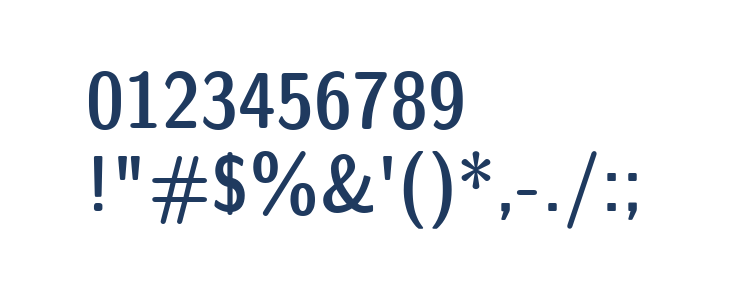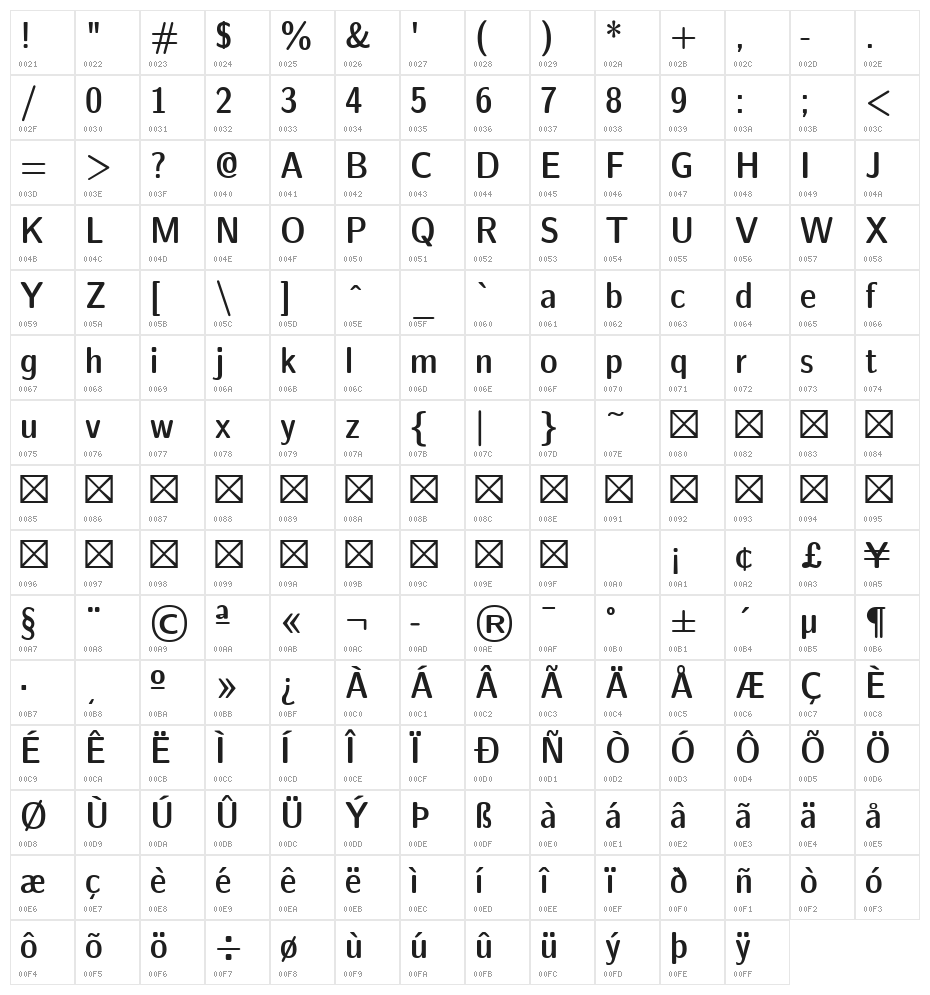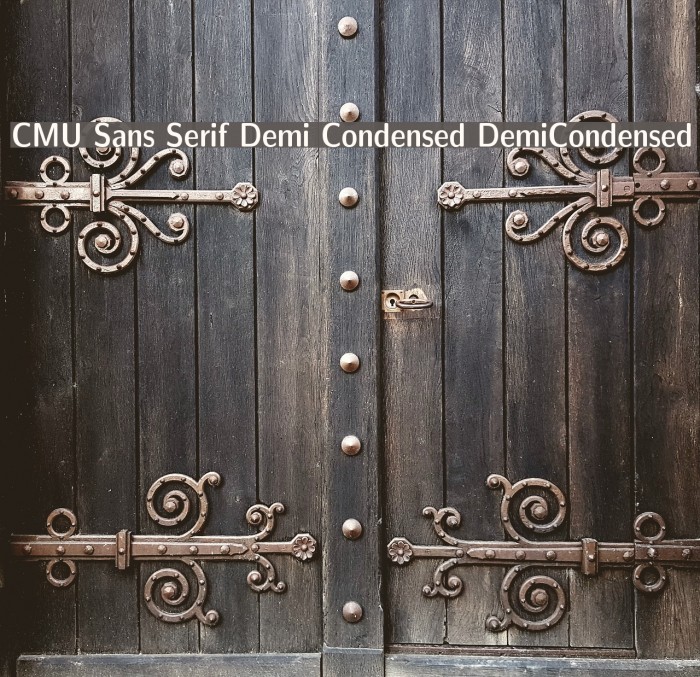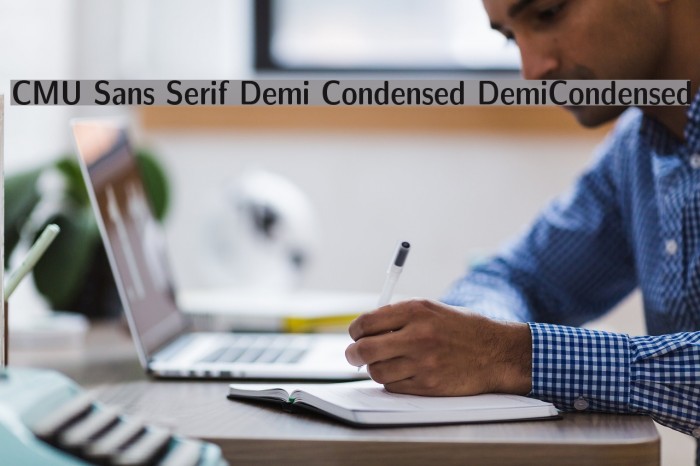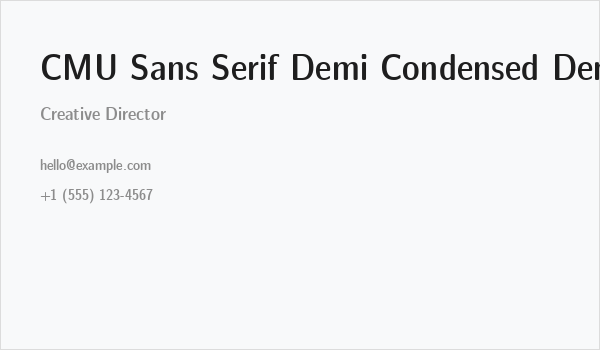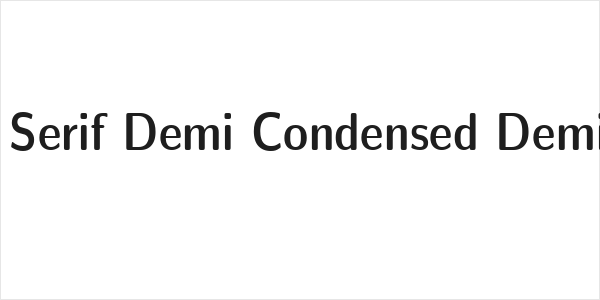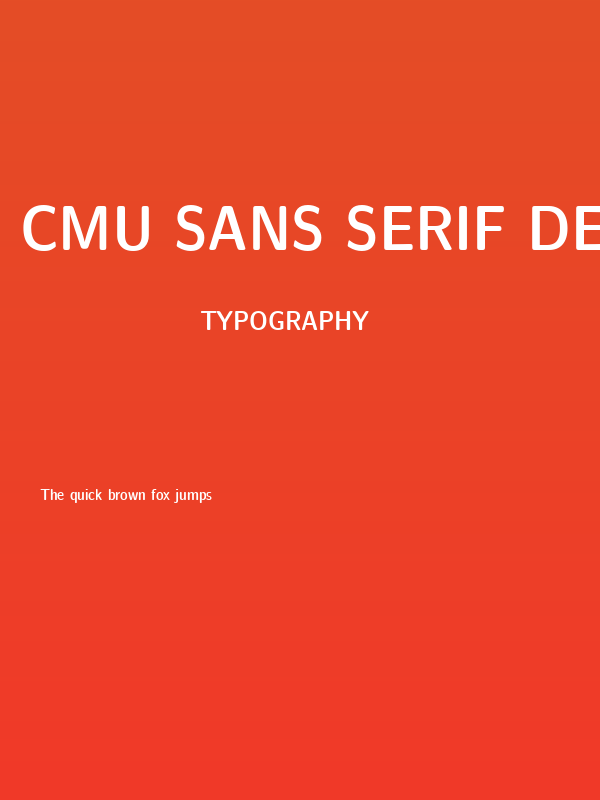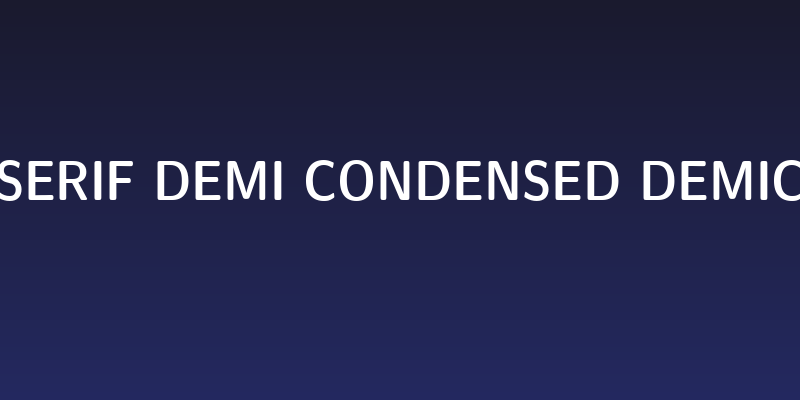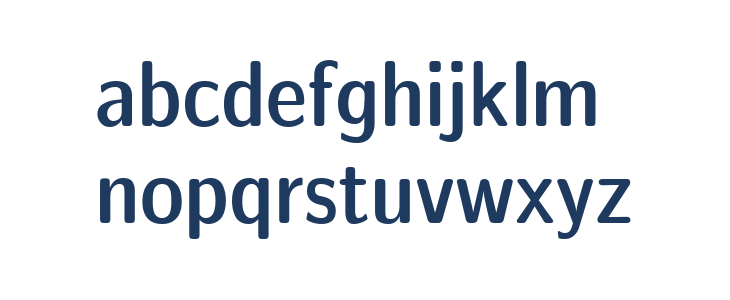
CMU Sans Serif Demi Condensed DemiCondensed Font
CMU Sans Serif Demi Condensed DemiCondensed Description
This font presents a clean and modern aesthetic with its sans-serif style. The characters are demi-condensed, offering a slightly narrower appearance than standard sans-serif fonts, which makes it ideal for fitting more text into a given space without sacrificing readability. The strokes are consistent in width, providing a uniform look across all characters. The uppercase letters are bold and assertive, while the lowercase letters maintain a balanced and approachable feel. The numbers are clear and distinct, making them suitable for data presentation. Special characters are well-defined, ensuring versatility in various applications.
| Proposed Projects | Ideal for editorial design, web content, corporate branding, and user interfaces where space efficiency and clarity are paramount. |